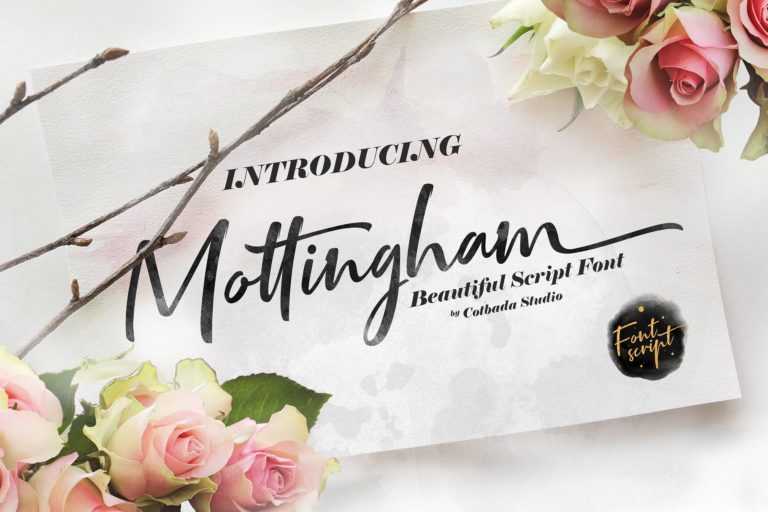
Mottingham Brush
Mottingham Brush Font
Mottingham Script is a unique, cool and modern handwritten font. It’s hand look style makes it perfect for use in all your design projects be it logos, signatures, labels, packaging design, blog headlines and Language Support